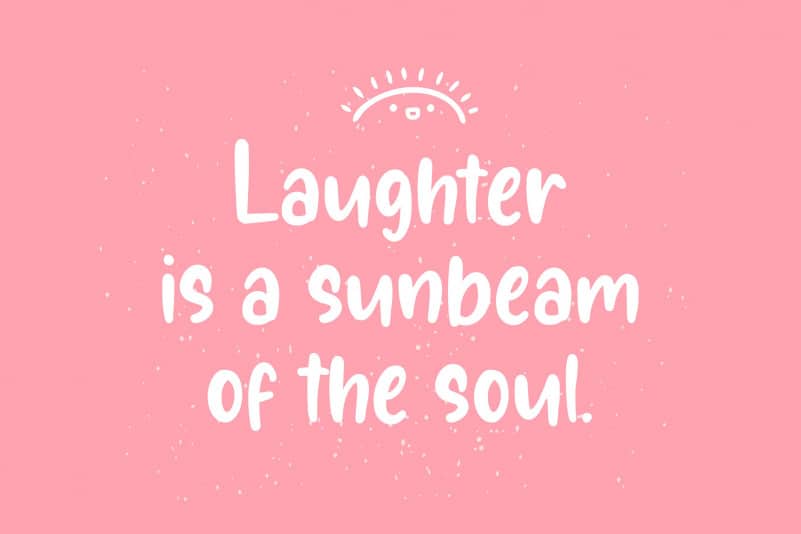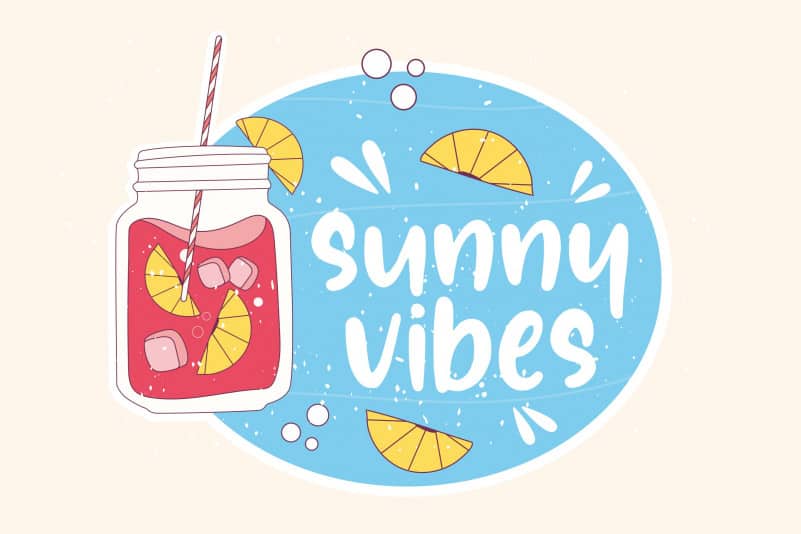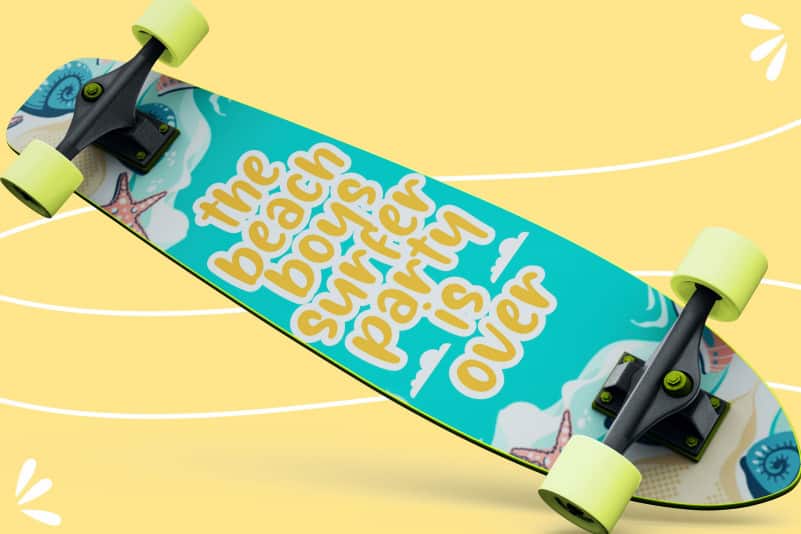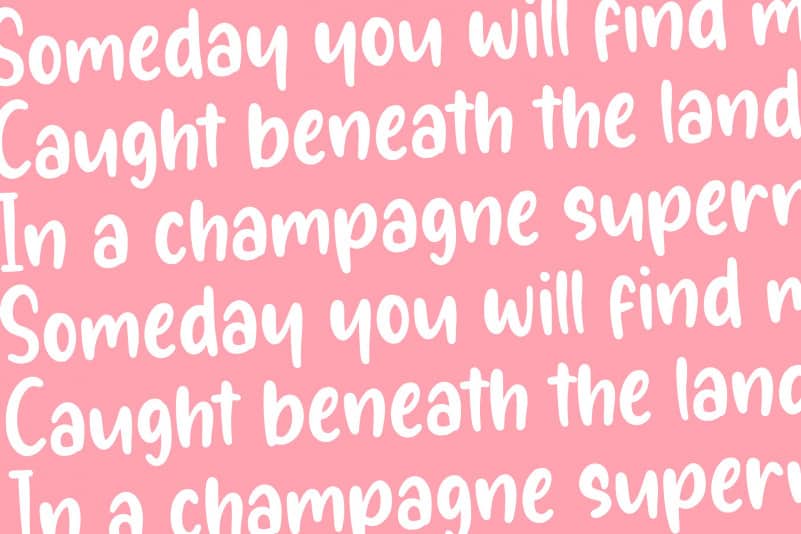
Sunglory Lovely Handwritten Font
Proudly Present, Sunglory Lovely Handwritten Font.
sunglory is a lovely handwritten font.
It is perfect for product packaging, branding project, megazine, social media, wedding, or just used to express words above the background.